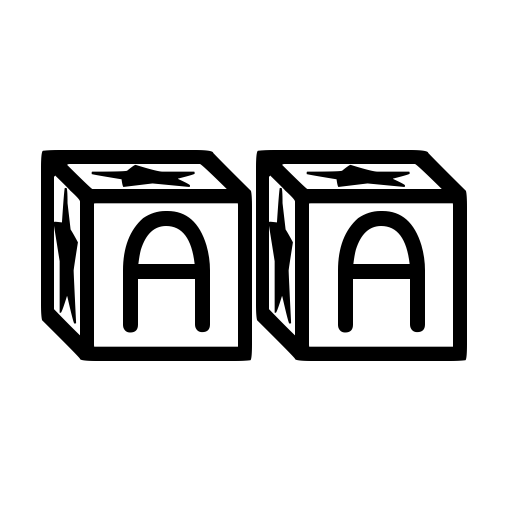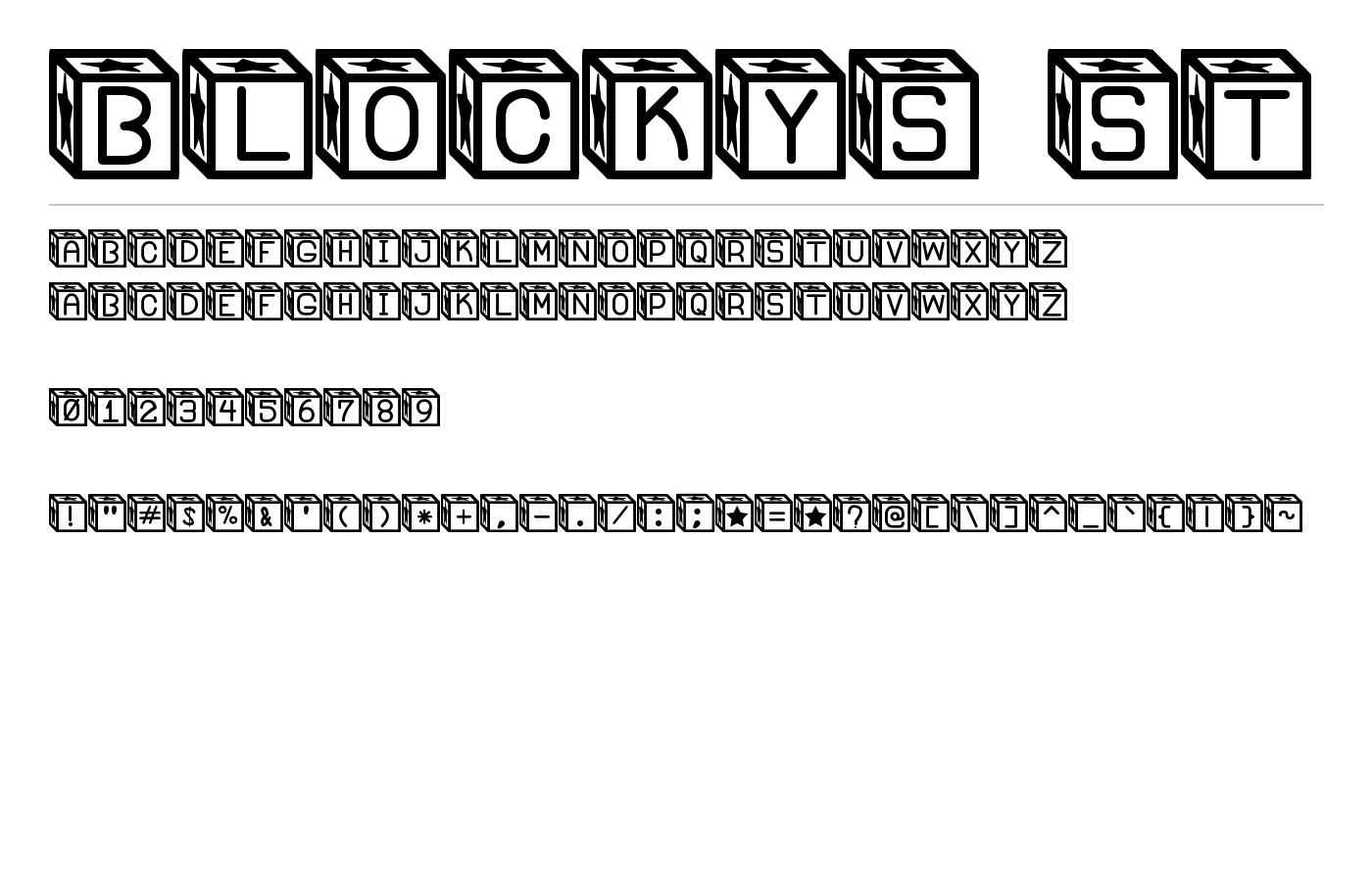
Blockys St Font is a playful and bold display typeface that features letters and numbers enclosed in three-dimensional block shapes, giving it a fun, toy-like appearance. Its thick, outlined strokes and geometric structure make it perfect for eye-catching headlines, children's materials, or branding that aims to evoke a sense of creativity and whimsy. This font shines in designs where a strong, distinctive, and approachable look is desired.
Blockys St Font
About Blockys St Font